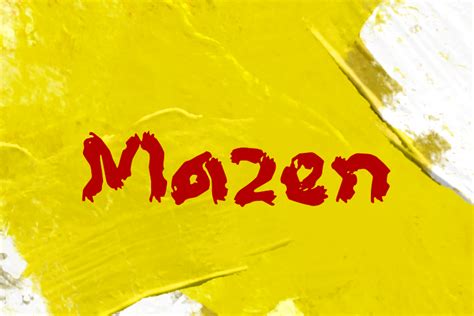
Mazen Font: A Comprehensive Guide
Hey everyone! Today, we’re diving deep into the world of Mazen Font . You know, those fonts that just look right, the ones that make your designs pop and your text incredibly readable. We’ll cover everything from what makes a font like Mazen stand out, to where you can find it, and how to use it effectively in your projects. So, grab a coffee, get comfy, and let’s explore the wonderful typography of Mazen Font!
Understanding Typography and Font Choices
Before we get into the nitty-gritty of Mazen Font specifically, let’s talk a bit about why typography even matters, guys. You see, the font you choose is like the voice of your text. Is it loud and boisterous? Soft and gentle? Professional and serious? Or casual and friendly? The right font can completely change the mood and message of your content. Choosing a font isn’t just about picking something that looks cool; it’s about selecting a tool that communicates effectively with your audience. Think about it: would you read a legal document in a playful, cartoonish font? Probably not! Similarly, a very formal, serif font might feel a bit out of place on a kid’s birthday invitation. This is where understanding different font families and their characteristics comes into play. We have serif fonts , which have those little decorative strokes (serifs) at the end of the letters, often associated with tradition, reliability, and readability in long texts. Then there are sans-serif fonts , which lack these strokes, often perceived as modern, clean, and minimalist. Within these broad categories, there are endless variations – scripts that mimic handwriting, display fonts that are bold and attention-grabbing, and monospaced fonts where every character takes up the same width, perfect for coding. Mazen Font likely falls into one of these, or perhaps it’s a unique blend, offering its own personality and characteristics that make it suitable for specific applications. The key is to match the font’s personality with the message and the audience. A poorly chosen font can be a major distraction, making your content harder to read and undermining your credibility. Conversely, a well-chosen font can enhance readability, convey a specific emotion, and make your design memorable. It’s a subtle yet powerful element of design that can make or break a project. So, when you’re thinking about Mazen Font, remember it’s not just letters; it’s a design choice with significant impact.
What Makes Mazen Font Special?
So, what’s the big deal about Mazen Font ? Why are we talking about it? Well, like any great font, Mazen likely possesses a unique set of characteristics that make it stand out from the crowd. Is it the clean lines? The distinctive curves? Perhaps its versatility across different design applications? Often, fonts gain popularity because they strike a perfect balance. Maybe Mazen Font offers exceptional readability, ensuring that even long blocks of text are easy on the eyes. This is crucial for websites, articles, and books. Or, perhaps it has a distinct personality that lends itself well to branding and logos, making a company’s identity instantly recognizable. Think about fonts like Helvetica – known for its neutrality and widespread use, or Times New Roman – the quintessential formal serif. Mazen Font could be the next big thing, or a beloved classic in its own niche. It might be designed with a specific aesthetic in mind, whether that’s modern minimalist, classic elegance, or something entirely avant-garde. Some fonts are incredibly versatile, working well for both headlines and body text, while others are best suited for one or the other. The weight variations – thin, regular, bold, black – also play a huge role. A font family with multiple weights offers designers a wider palette to work with, allowing for visual hierarchy and emphasis. The kerning and spacing are also critical; well-designed fonts have balanced letterforms that don’t clash or create awkward gaps. Mazen Font might excel in these technical aspects, contributing to its overall appeal and usability. It’s these subtle details, combined with a strong overall design, that elevate a font from just being a collection of characters to a powerful design element. Its special qualities could be its legibility at small sizes, its striking presence at large sizes, or its ability to evoke a specific feeling – be it sophisticated, playful, or robust. Understanding these potential strengths helps us appreciate why Mazen Font might be the perfect choice for your next creative endeavor.
Finding and Using Mazen Font
Tips for Effective Font Pairing
Okay, so you’ve fallen in love with Mazen Font , and you want to use it everywhere! But hold on a sec, guys. While it’s tempting to use your favorite font for everything , effective design often relies on contrast and balance. This is where font pairing comes in, and it’s a game-changer for making your designs look professional and polished. The fundamental principle is to pair contrasting fonts that complement each other rather than compete. For instance, if Mazen Font is a bold, decorative display font, you’ll likely want to pair it with a clean, simple sans-serif font for your body text. This ensures readability for longer passages while allowing your headlines to grab attention. Conversely, if Mazen Font is a sleek, minimalist sans-serif, you might pair it with a classic serif font for a touch of elegance or a more stylized script for accent text. The goal is to create a visual hierarchy. Your main message should be immediately apparent, and supporting information should be easily digestible. Think about the personalities of the fonts. Do they clash? Or do they create an interesting dialogue? Another tip is to consider the x-height – the height of lowercase letters like ‘x’. Fonts with similar x-heights tend to pair well, even if they are from different families. Also, pay attention to the overall mood or tone you want to convey. Are you going for professional and authoritative? Or friendly and approachable? Your font choices should reflect this. Don’t be afraid to use font weights to your advantage. If Mazen Font has multiple weights, you can use its bold version for headlines and its regular or light version for subheadings or captions, all within the same font family, which can create a cohesive look. However, if you’re pairing Mazen with another font, ensure they don’t look too similar, as this can create a visual awkwardness, making it seem like you couldn’t decide between the two. When in doubt, look at established designs for inspiration, but always trust your gut and test your pairings to see how they read. Good font pairing makes your content more engaging and easier to navigate, really elevating the overall user experience.
Conclusion: The Power of Mazen Font in Your Designs
So there you have it, folks! We’ve journeyed through the world of typography, exploring what makes a font like Mazen Font potentially so impactful. Whether it’s its unique aesthetic, its superb readability, or its versatility, the right font can truly transform a design. Remember, choosing a font is about more than just looks; it’s about communication. It’s about setting a tone, conveying a message, and connecting with your audience on a deeper level. Mazen Font , like any well-crafted typeface, offers a powerful way to achieve these goals. Don’t be afraid to experiment with it, pair it thoughtfully with other fonts, and see how it elevates your next project. Whether you’re designing a website, crafting a presentation, or creating a social media graphic, the attention you pay to your typography choices, like using Mazen Font, will undoubtedly make a difference. Keep exploring, keep designing, and most importantly, keep having fun with type! Your audience will thank you for it, and your designs will shine.